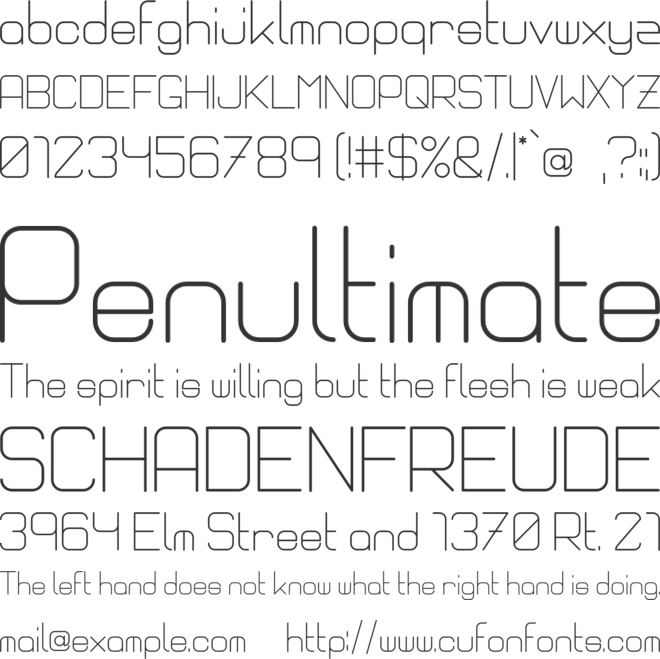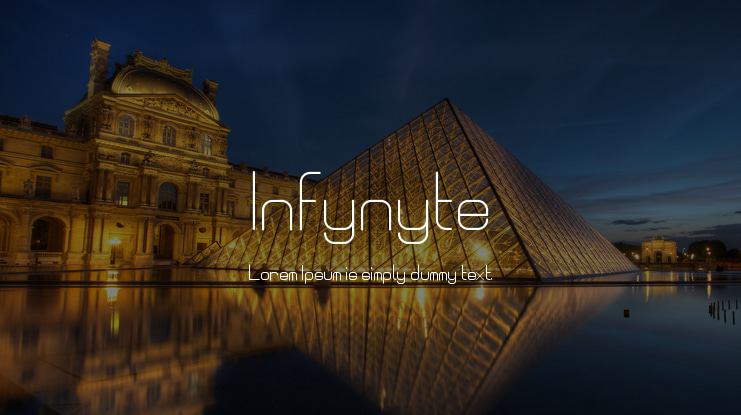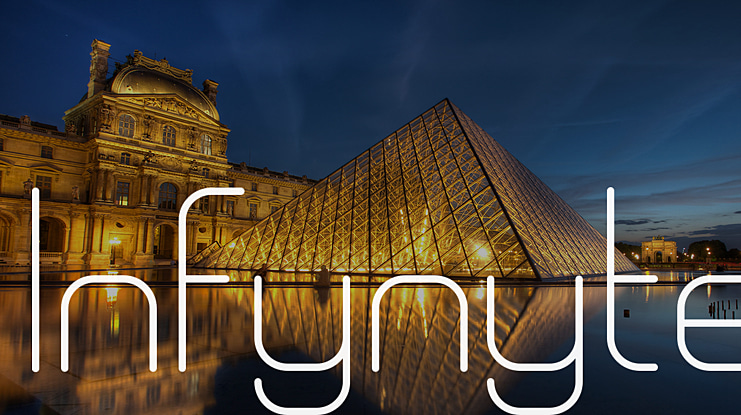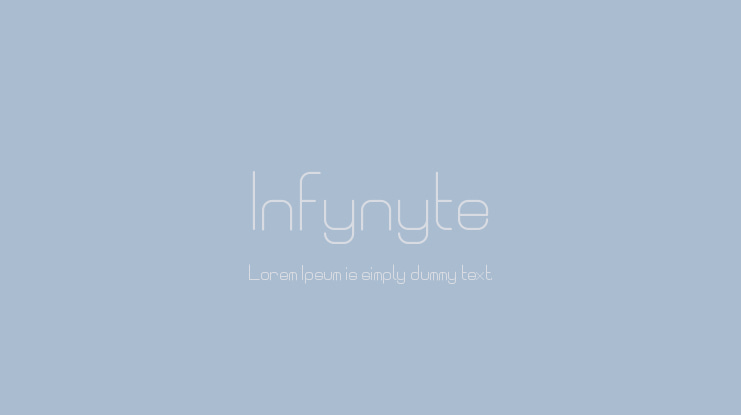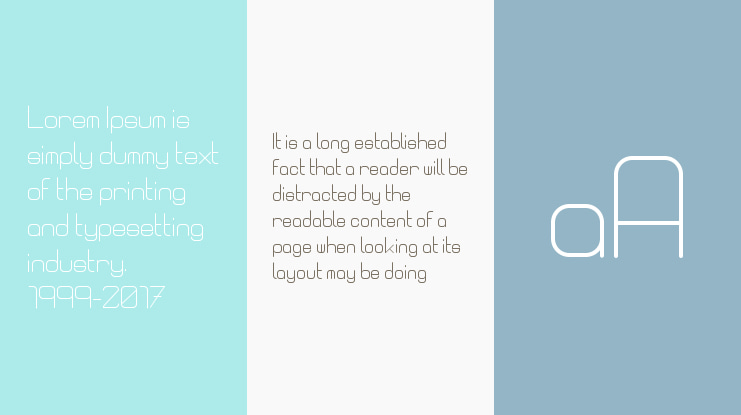
Infynyte Font
INFYNYTE is a family of typefaces that aim to embody the styles and ideas of minimalism and sci-fi futurism. It can be used in many was and for many applications surrounding minimalistic and or sci-fi themes, as well as hi-tech designs.